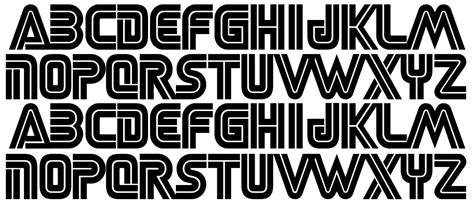
Sega Logo Font . Web sega logo used from the late 1950s to 1974. You can download the font for free here.
Web sega logo used from the late 1950s to 1974. Sega was founded by american businessmen martin bromley and richard stewart as nihon goraku bussan. Web a font called sega is very similar to the lettering of its logotype.